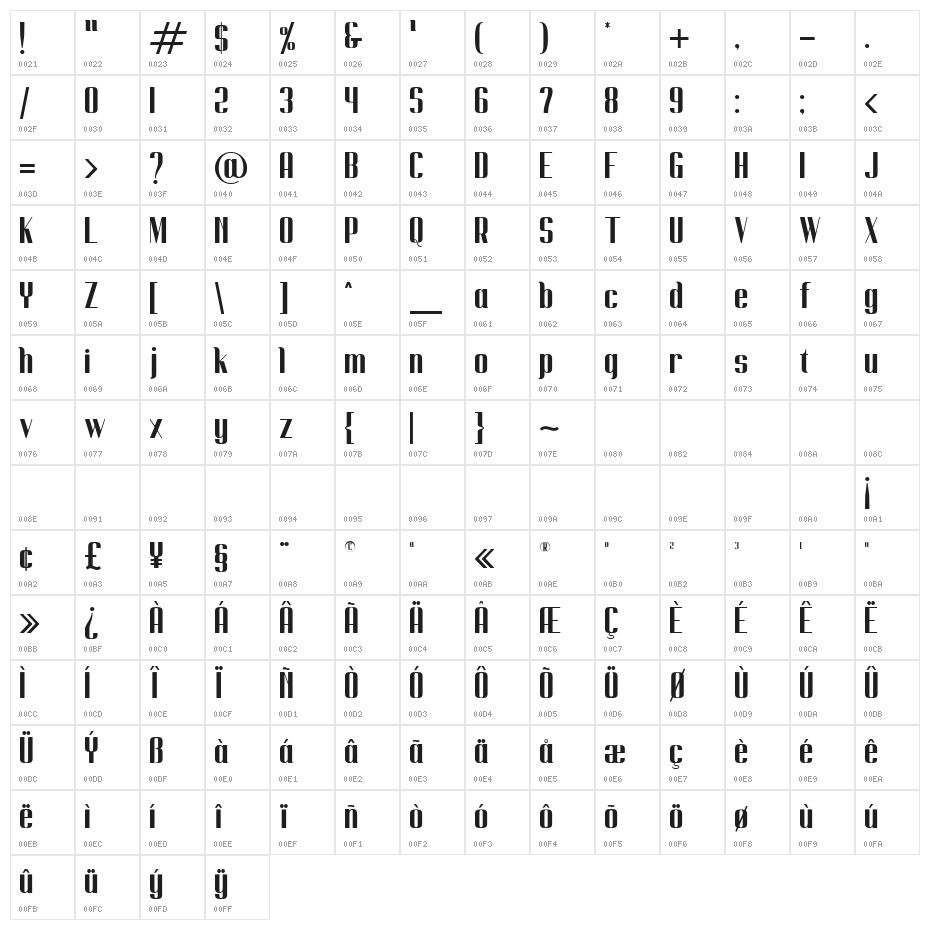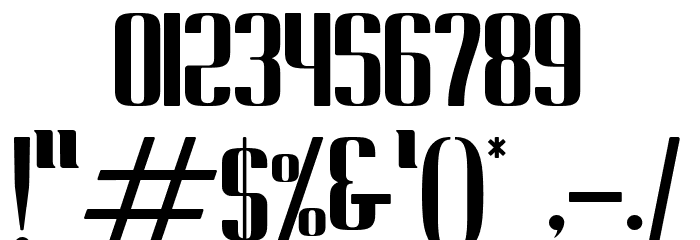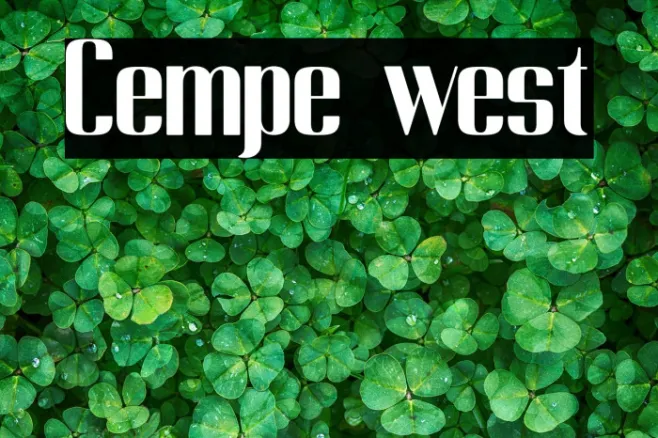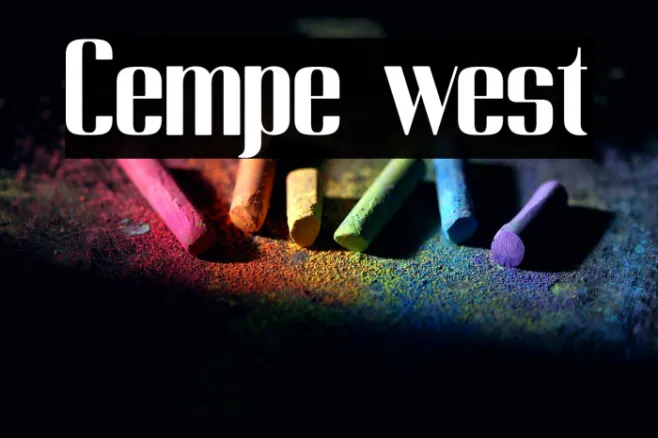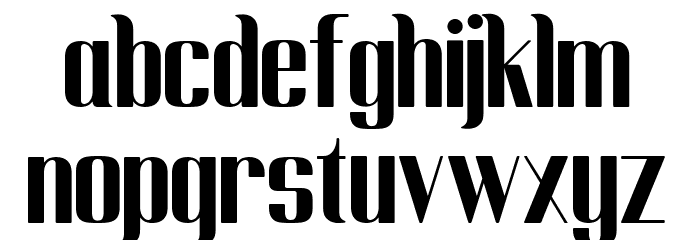
Cempe west Font
Cempe west Description
This font features a bold and striking design with high contrast between thick and thin strokes, giving it a dramatic and modern appearance. The uppercase letters are tall and narrow, with sharp angles and a distinct geometric influence. The lowercase letters maintain a similar style, with rounded edges that add a touch of softness to the overall look. The numerals are consistent with the letterforms, offering a cohesive aesthetic. Special characters are designed with the same attention to detail, ensuring they blend seamlessly with the rest of the typeface. This font's unique style makes it stand out, making it suitable for eye-catching designs.